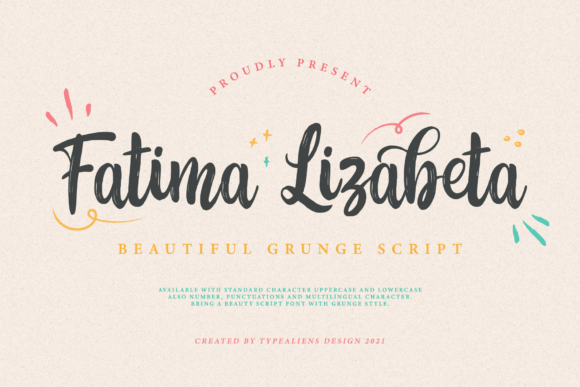
Unleash the power of Fatima Lizabeta Font, a masterpiece crafted by typealiens. This exquisite script font exudes grace and elegance, effortlessly captivating your audience. Each character, meticulously balanced and aesthetically pleasing, dances across your designs, bringing your creative visions to life.
With Fatima Lizabeta Font, your website will transform into a symphony of style. Its delicate strokes and flowing lines create a visual harmony that invites readers to linger and explore. Its versatility shines through, seamlessly complementing a myriad of design aesthetics.
Imagine your words adorned with the beauty of Fatima Lizabeta Font. Your website will radiate sophistication, making a lasting impression on every visitor. The font's intrinsic elegance elevates your content, imbuing it with a touch of timeless charm.
Don't let your website settle for ordinary fonts. Embrace the enchantment of Fatima Lizabeta Font and watch as your designs blossom into works of art. Its captivating allure will draw readers in, captivating their attention and leaving them utterly mesmerized.
Embark on a typographic adventure with Fatima Lizabeta Font. Its allure is undeniable, its impact profound. Transform your website into a visual masterpiece, leaving an unforgettable mark on your audience.